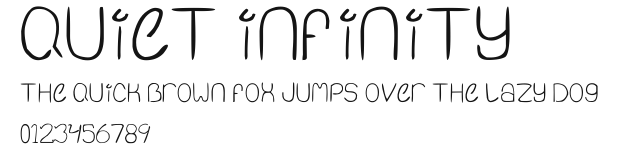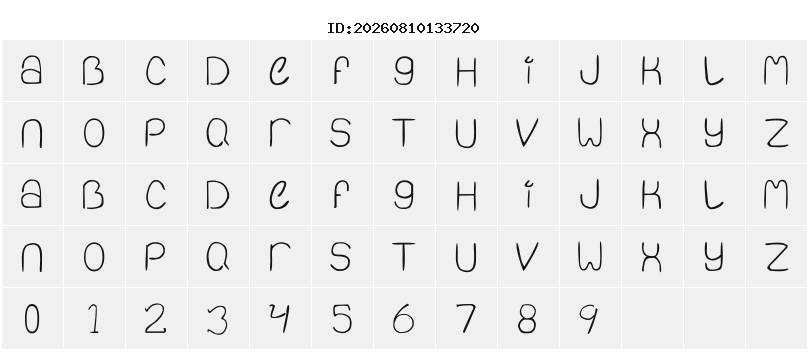
• Font Name: Quiet Infinity
• Full Font Name: Quiet Infinity
Quiet Infinity.ttf is a modern, elegant sans-serif font designed for ultimate readability and visual harmony. Perfect for branding, headlines, web design, and print materials.